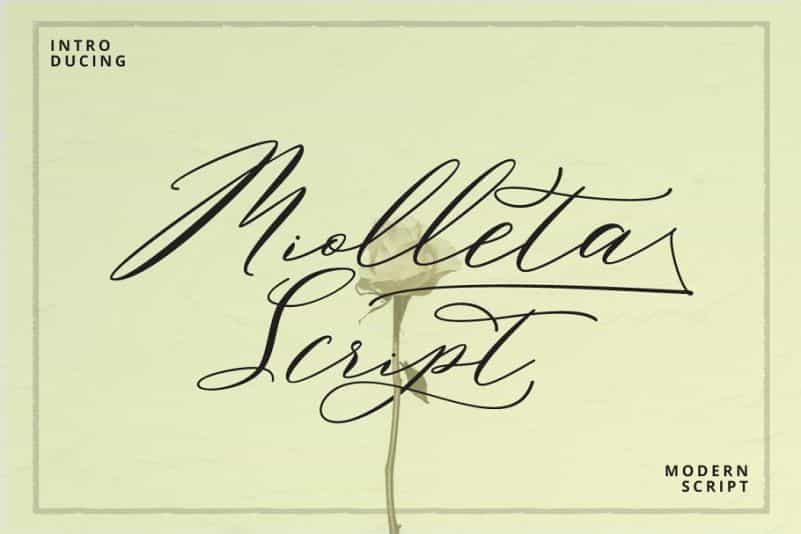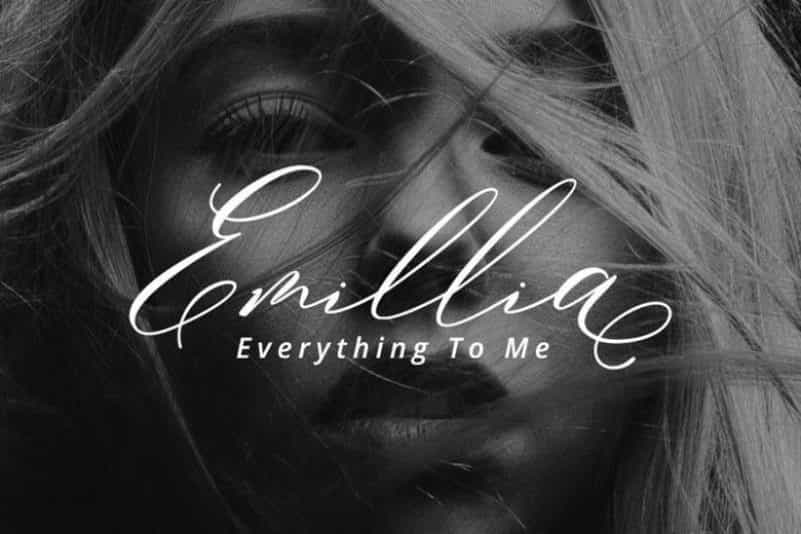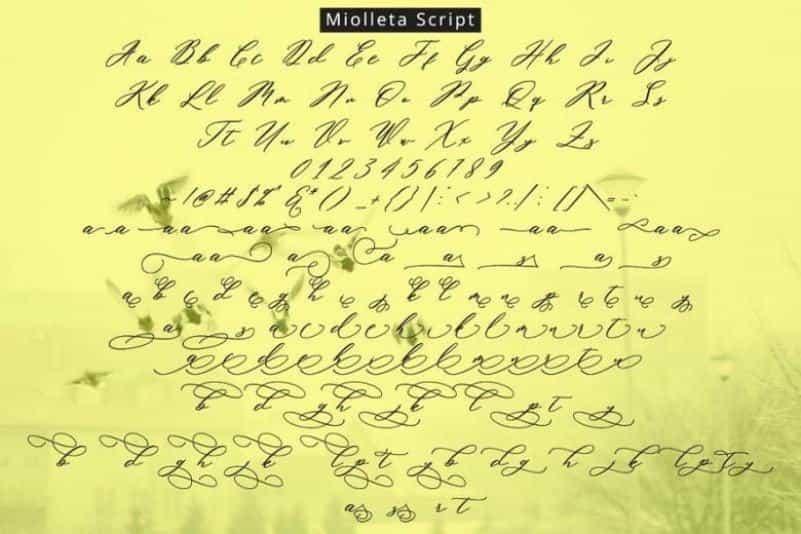
Introducing Miolleta Font. The Mielleta Calligraphy Font is a mixture of the classic and contemporary font. The style is not perfect, it has its ups and downs just like a dance letters. The smooth, clean and simple way of writing makes the unities among people easier to reach.